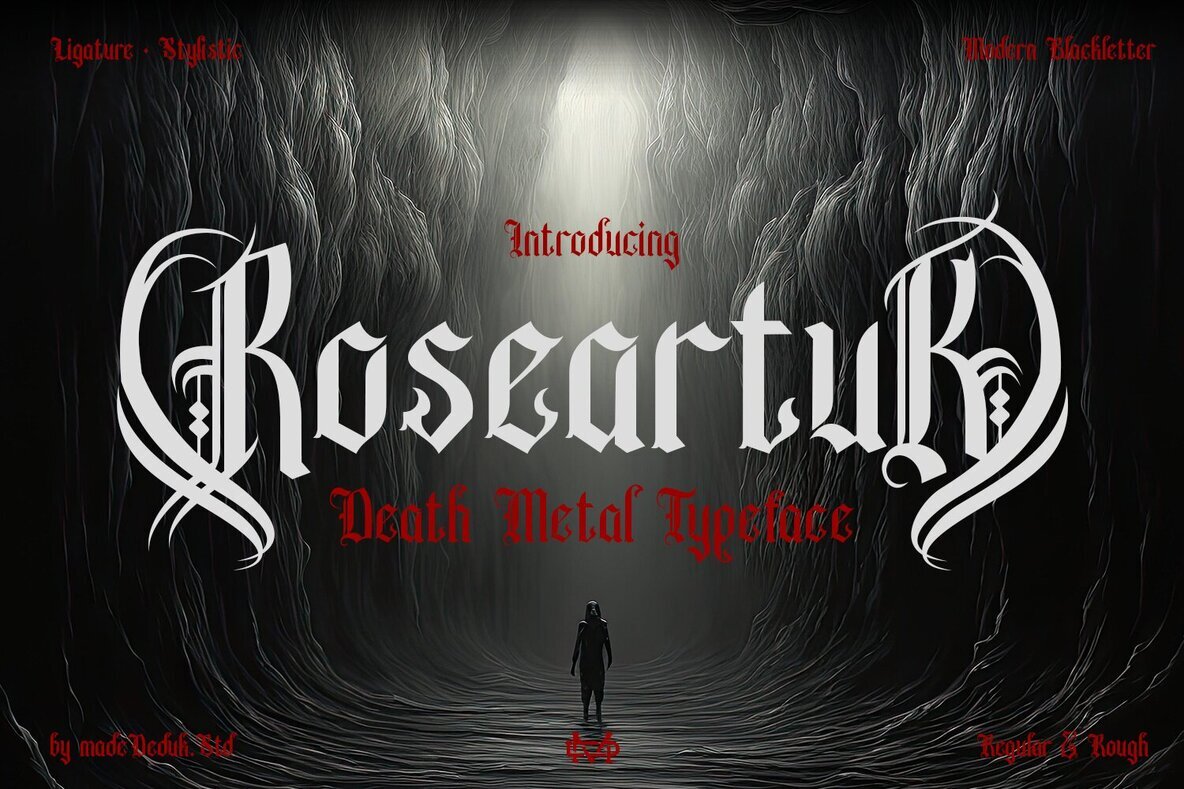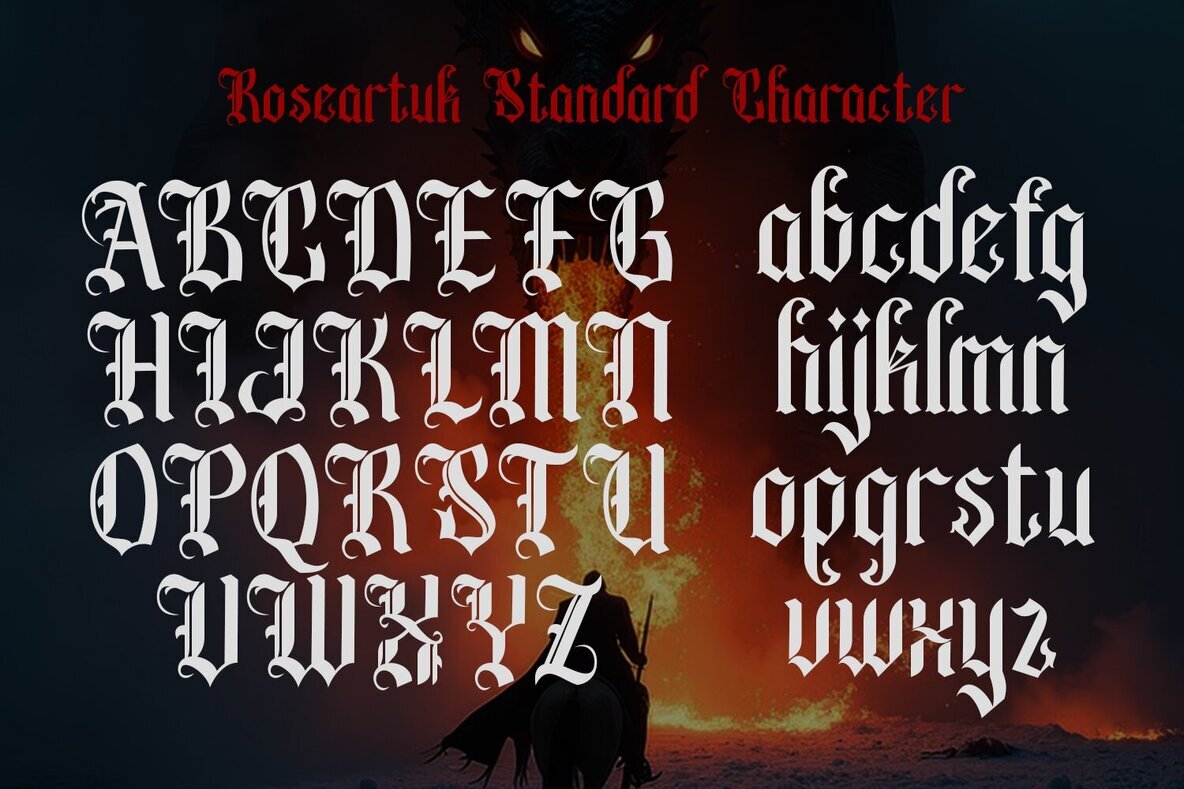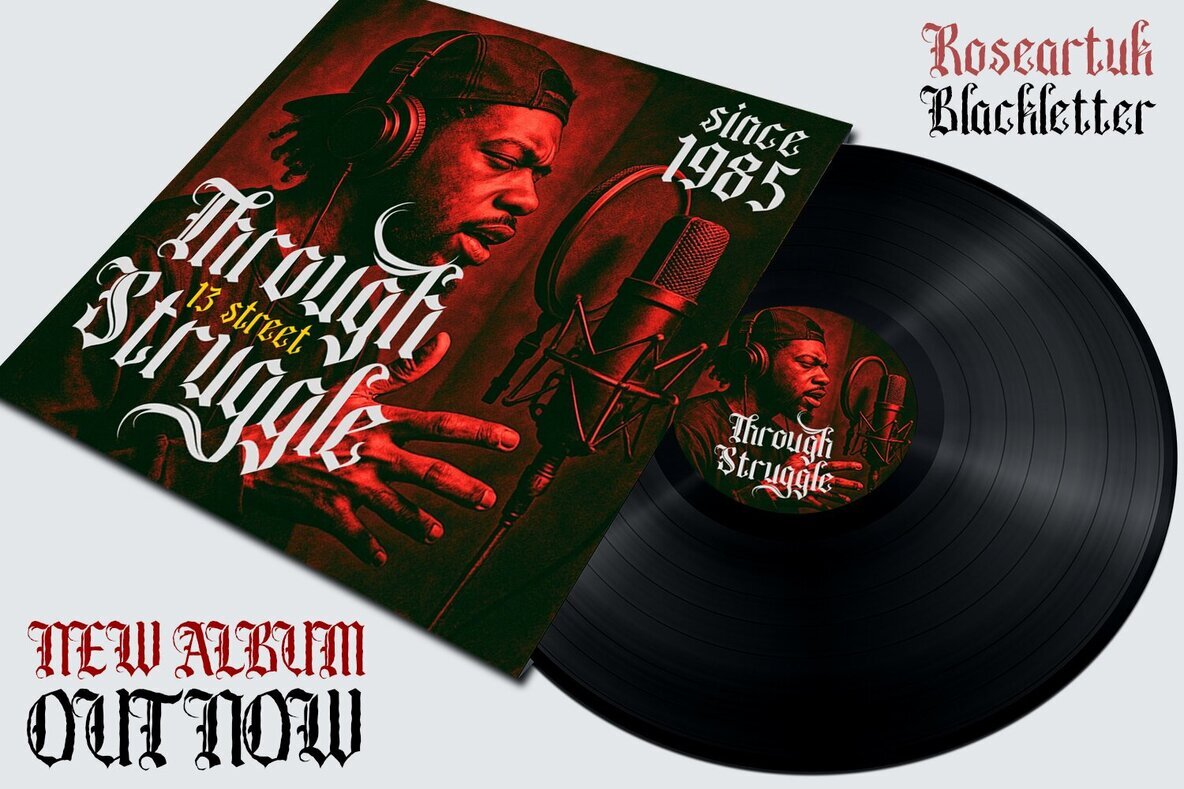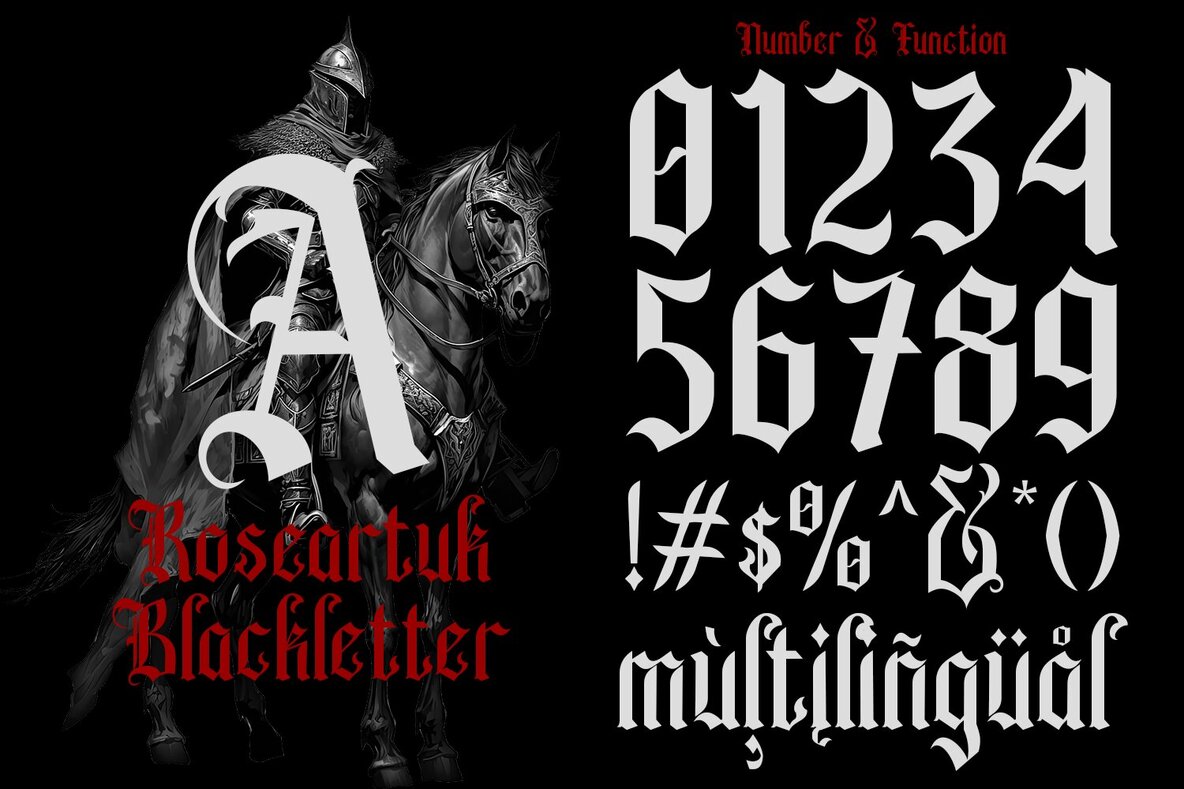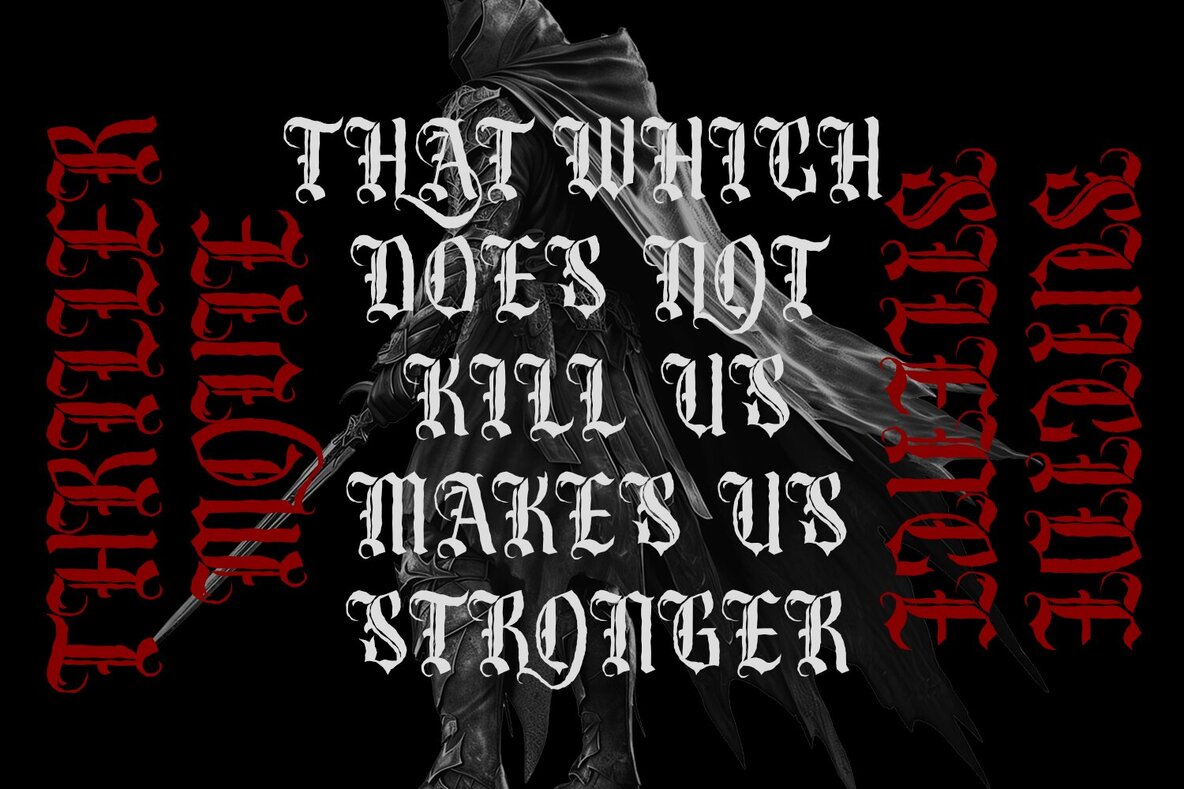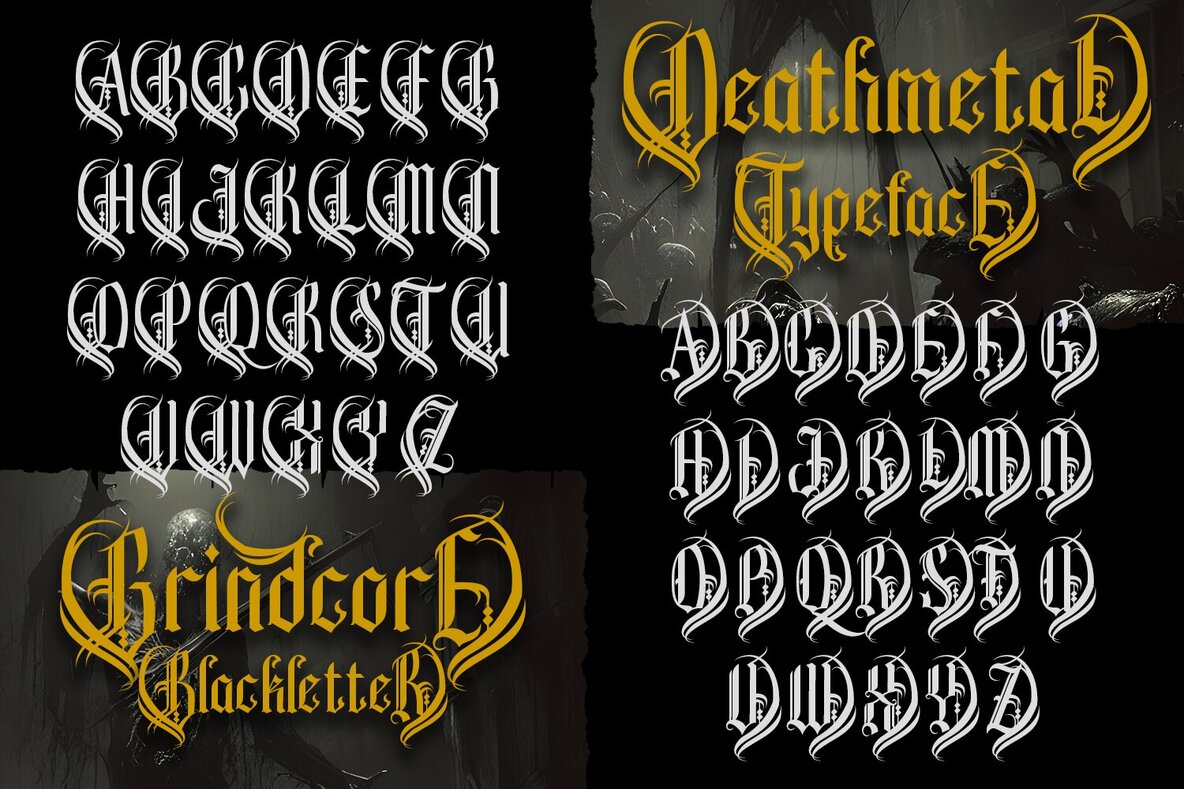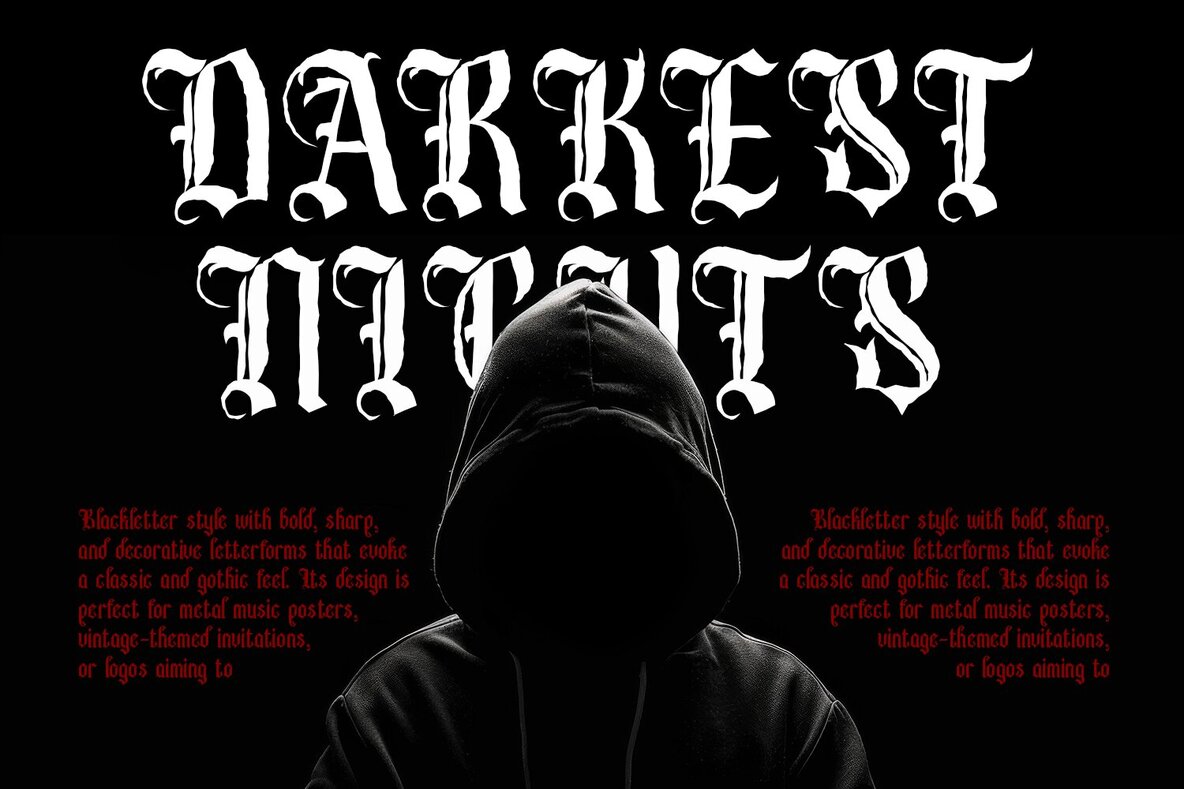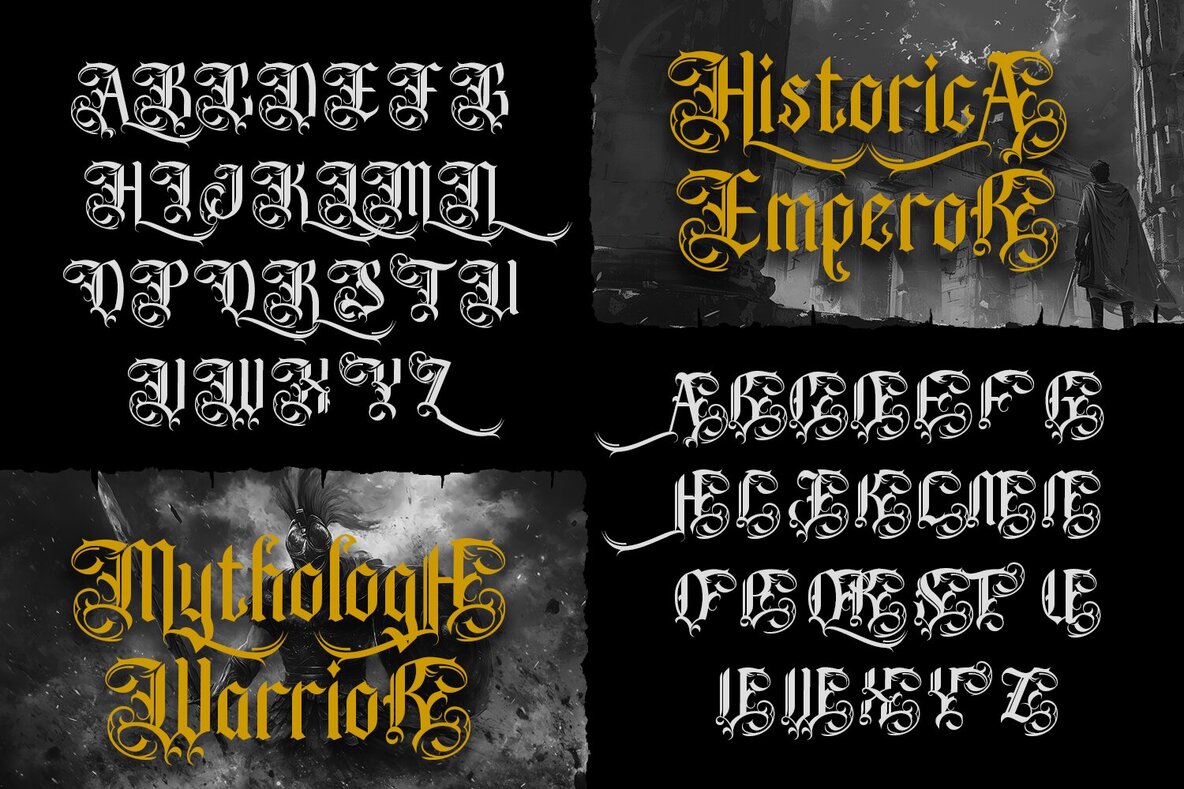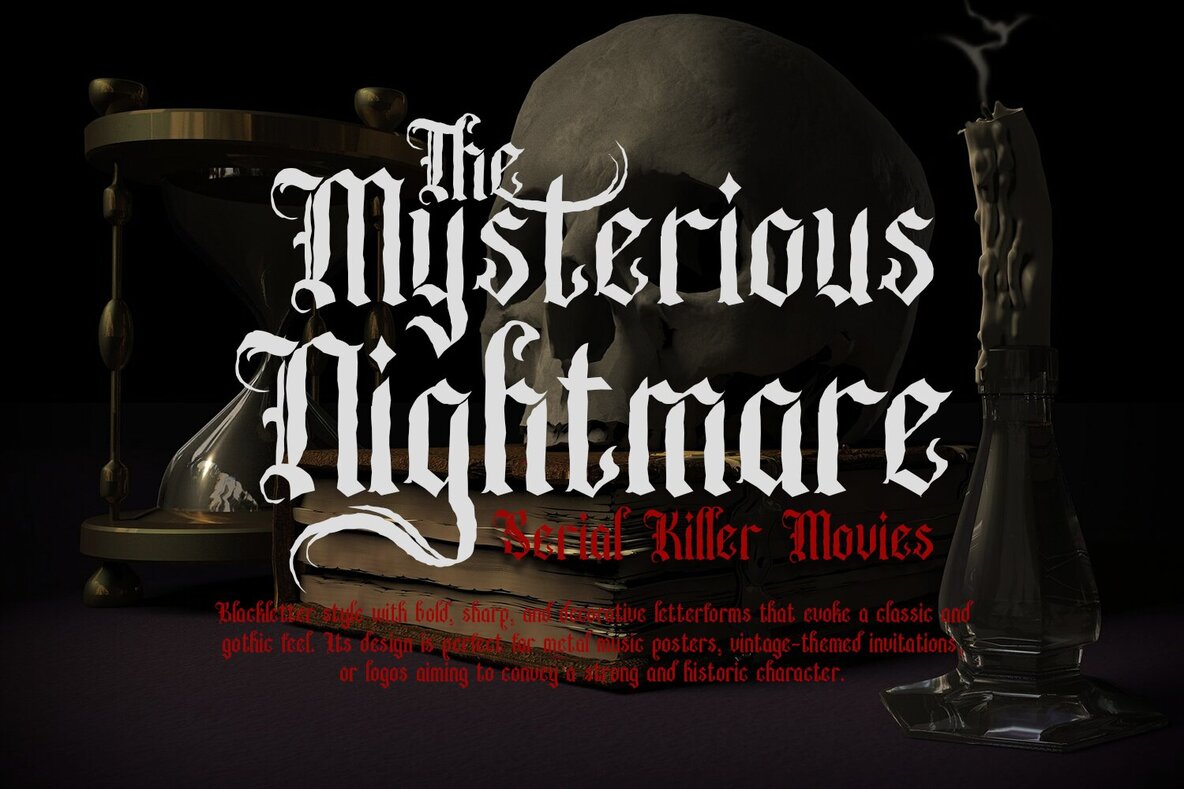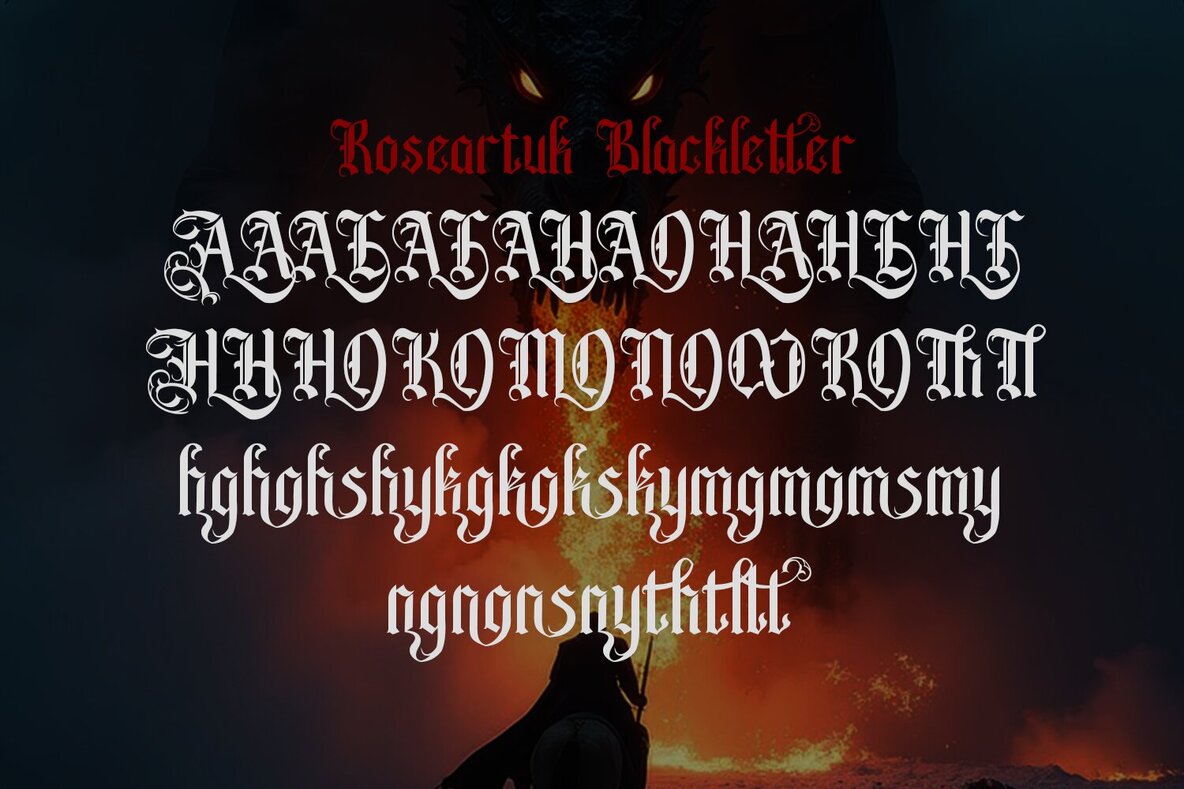
Roseartuk Font
Roseartuk Regular
Roseartuk Rough
Roseartuk stands out with its bold, sharp, and decorative forms, blending the traditional gothic blackletter style with a modern edge. Each letter captures a sense of historical depth, making it a compelling choice for designers seeking to convey strength and timeless character. The font includes a variety of styles, ligatures, and alternative glyphs, giving you complete control over your creative layouts.Bold Metal Blackletter for Striking Typography
This typeface is crafted to excel in both digital and print settings. Use Roseartuk to create unforgettable logos, formal invitations, distinctive labels, and engaging magazine headlines. Its versatility also extends to book covers, greeting cards, packaging, makeup branding, and metal music posters. Vintage-themed projects benefit from its striking visual presence that anchors every design with authority and style.Features